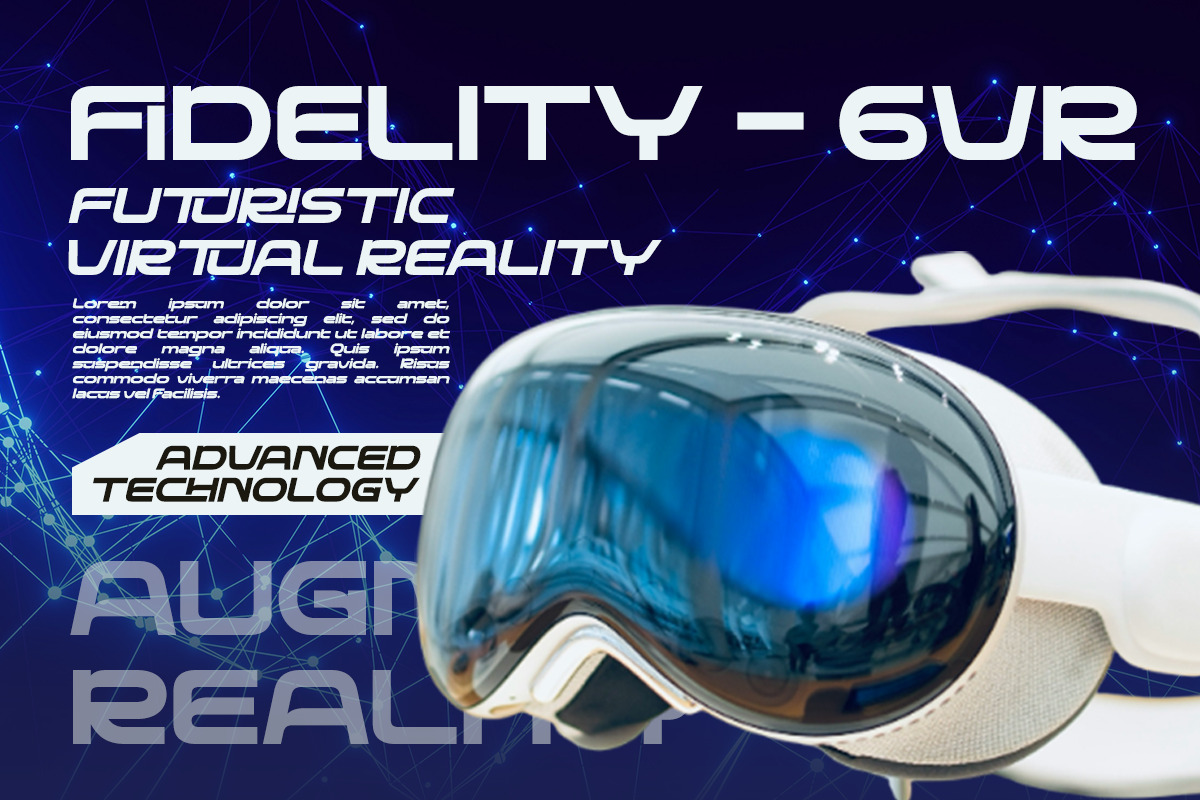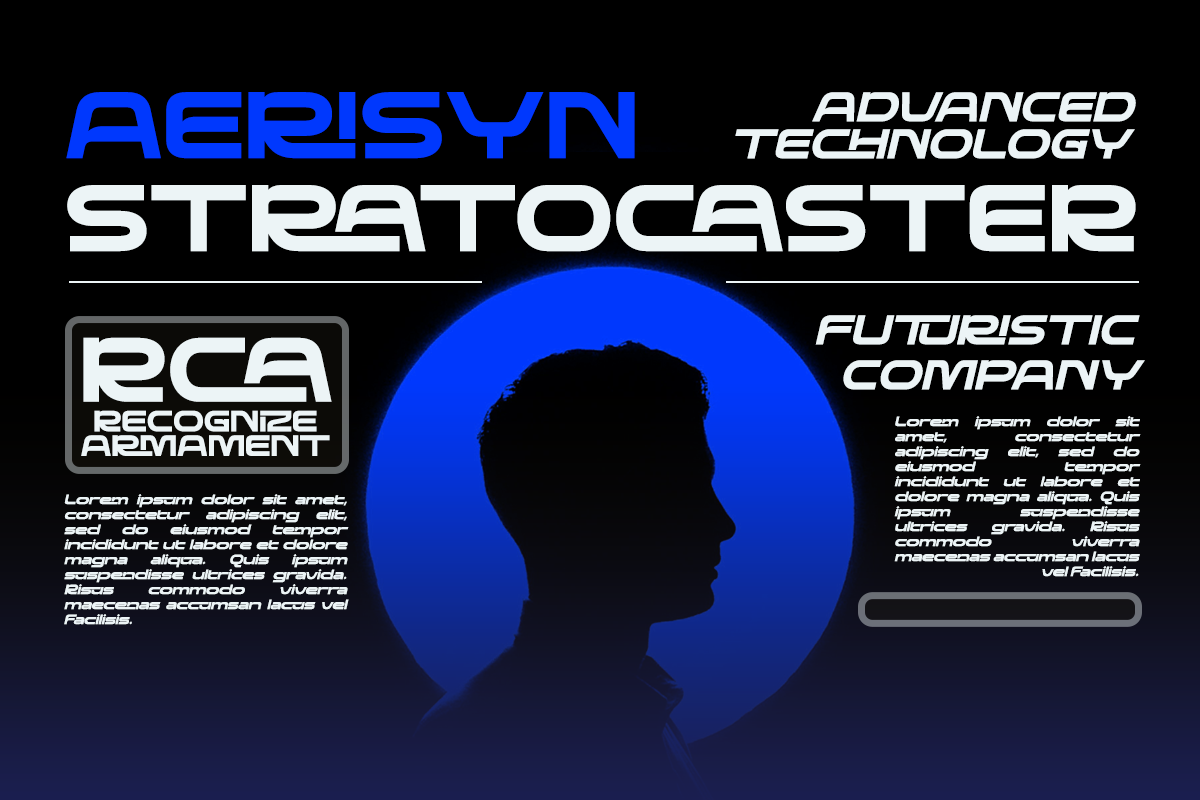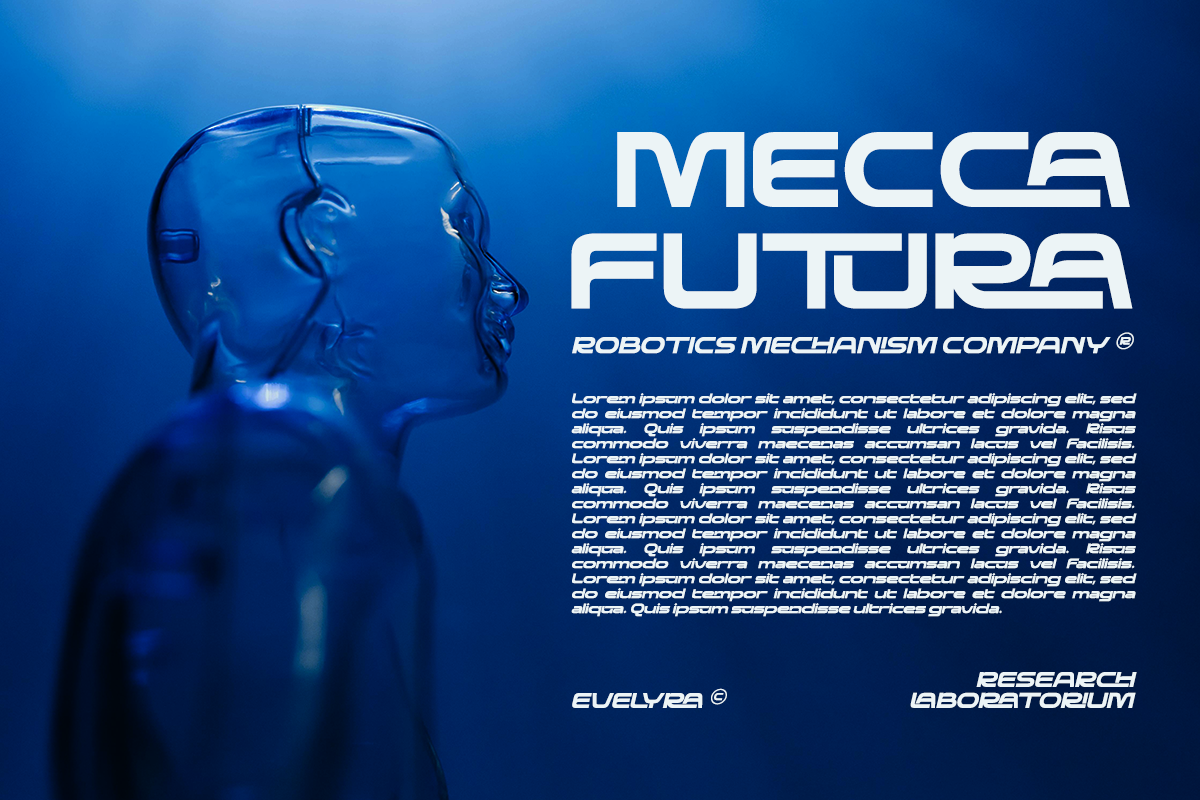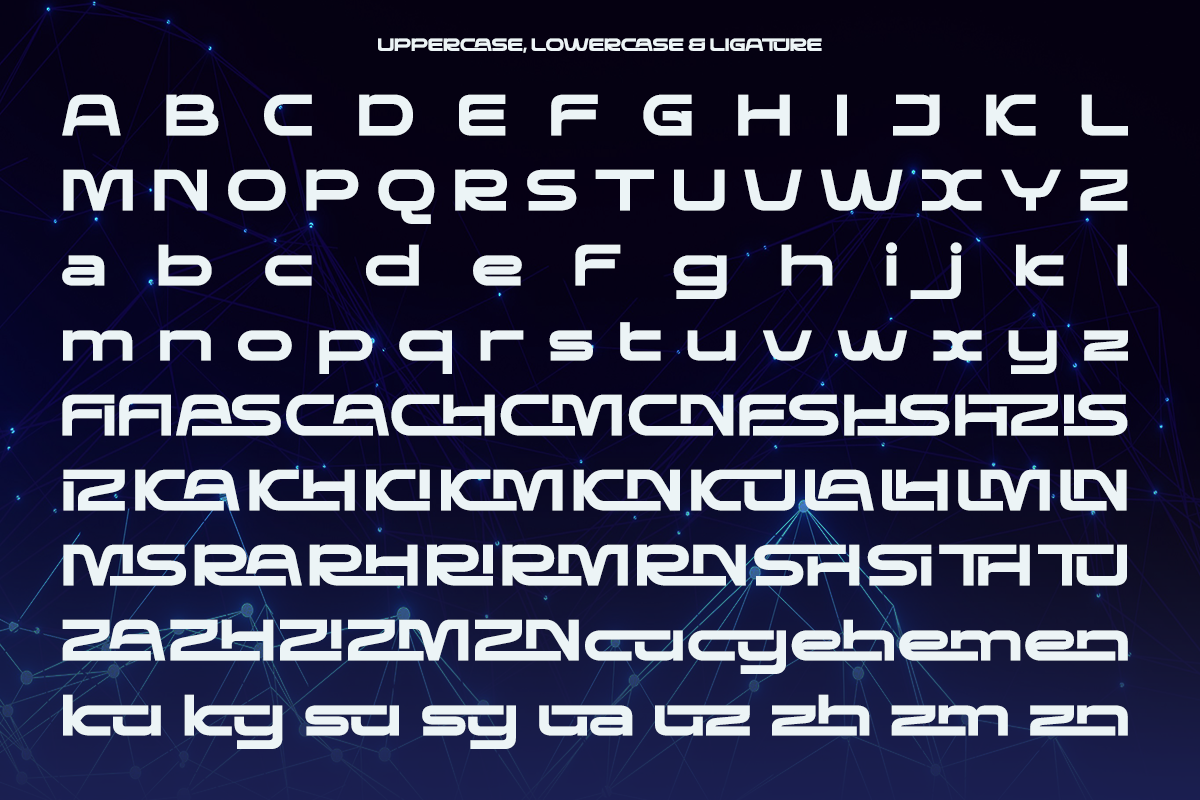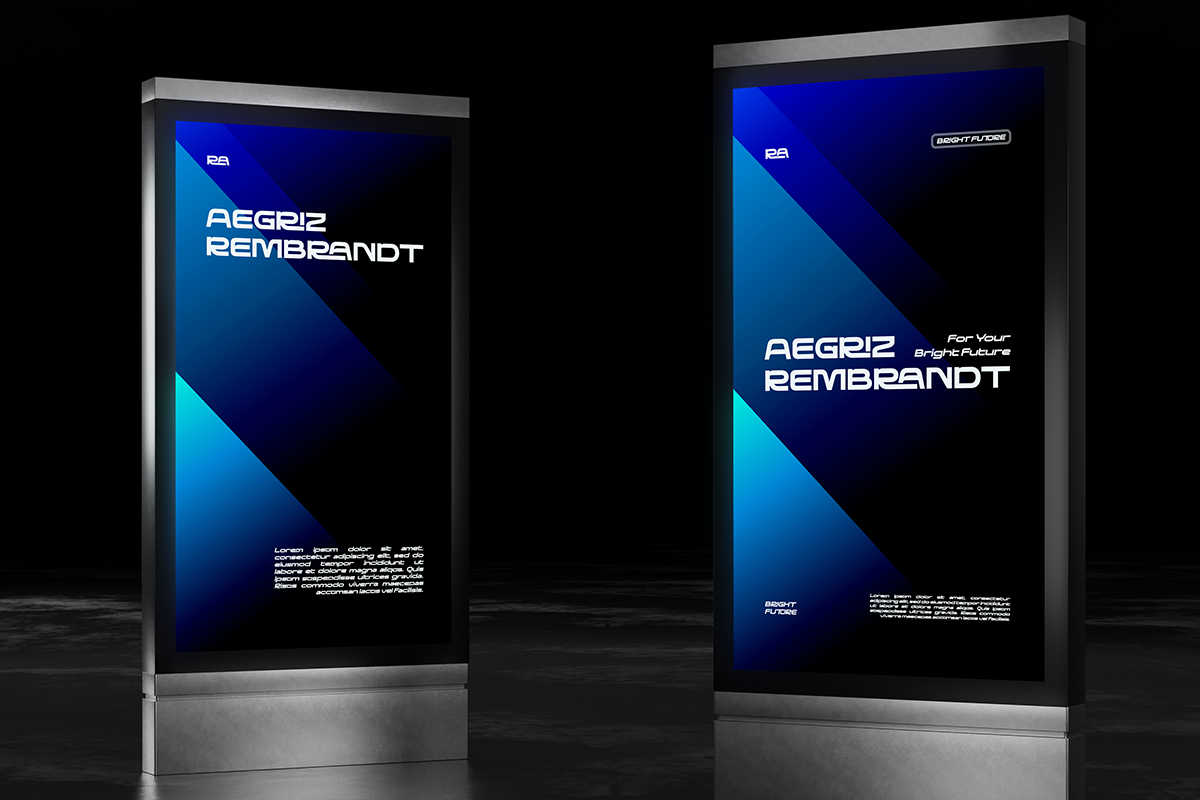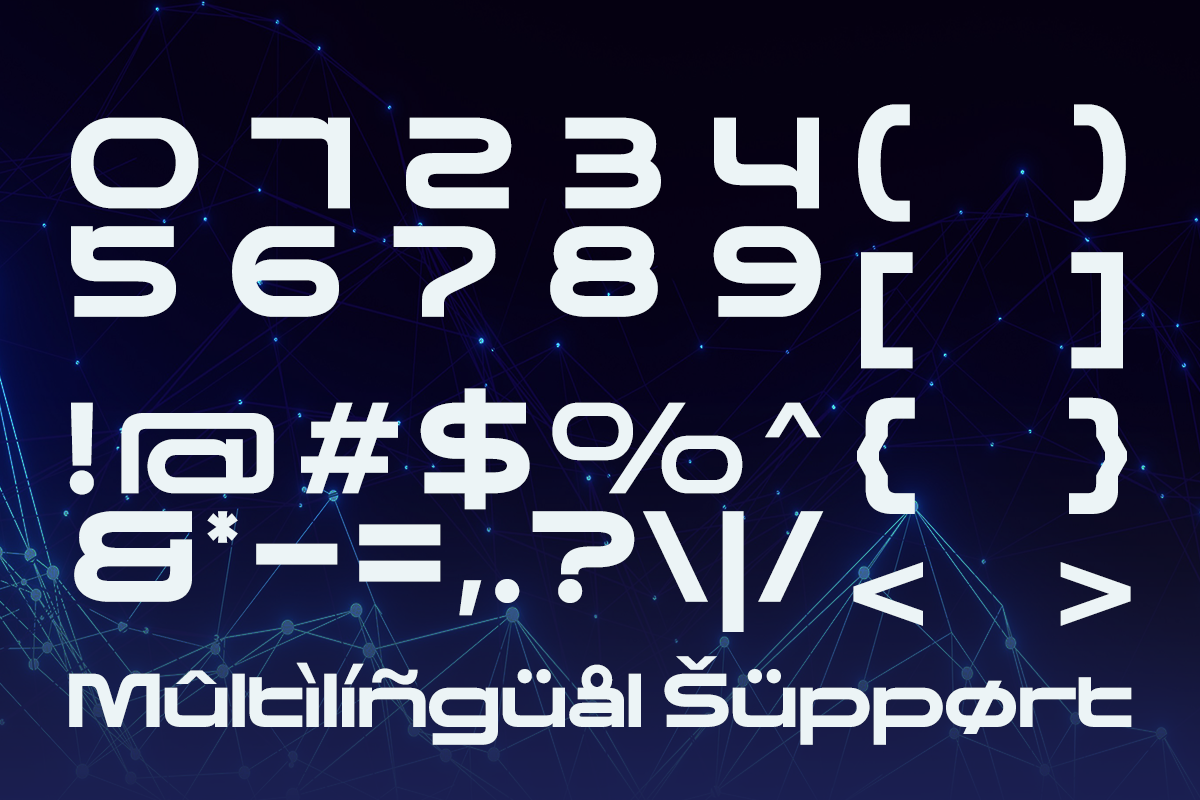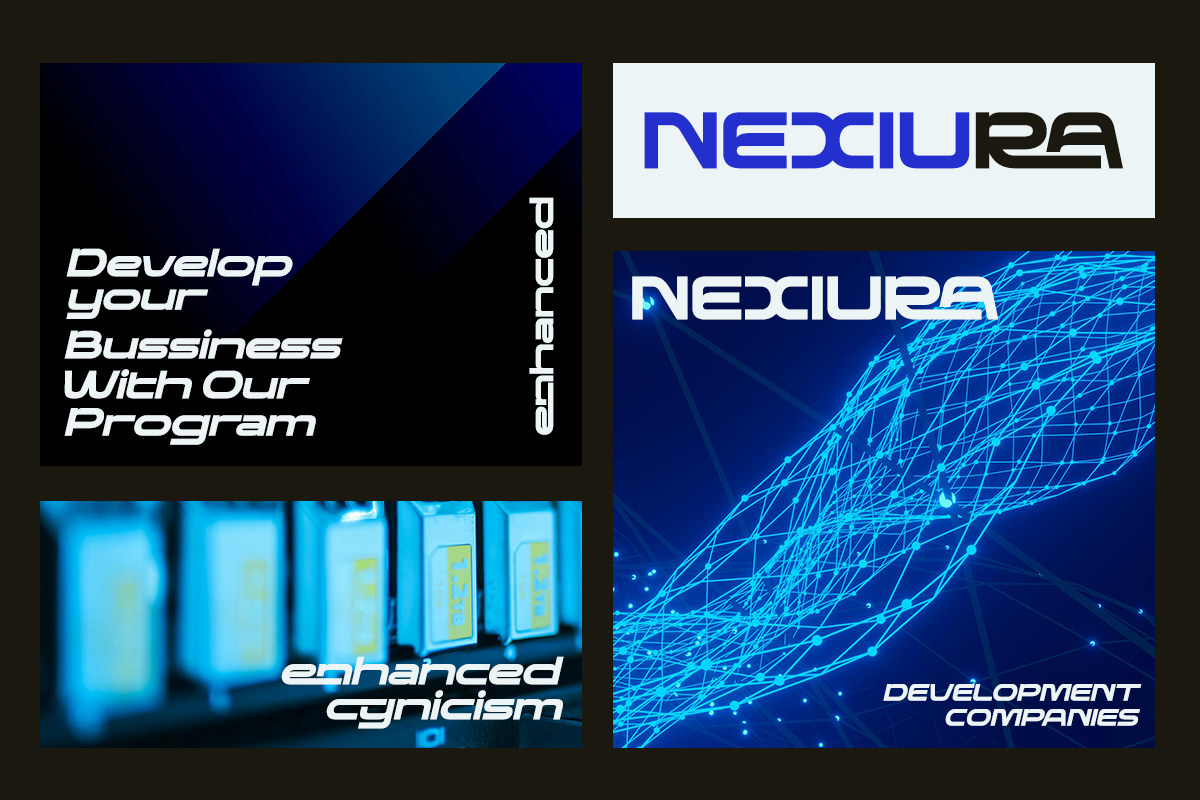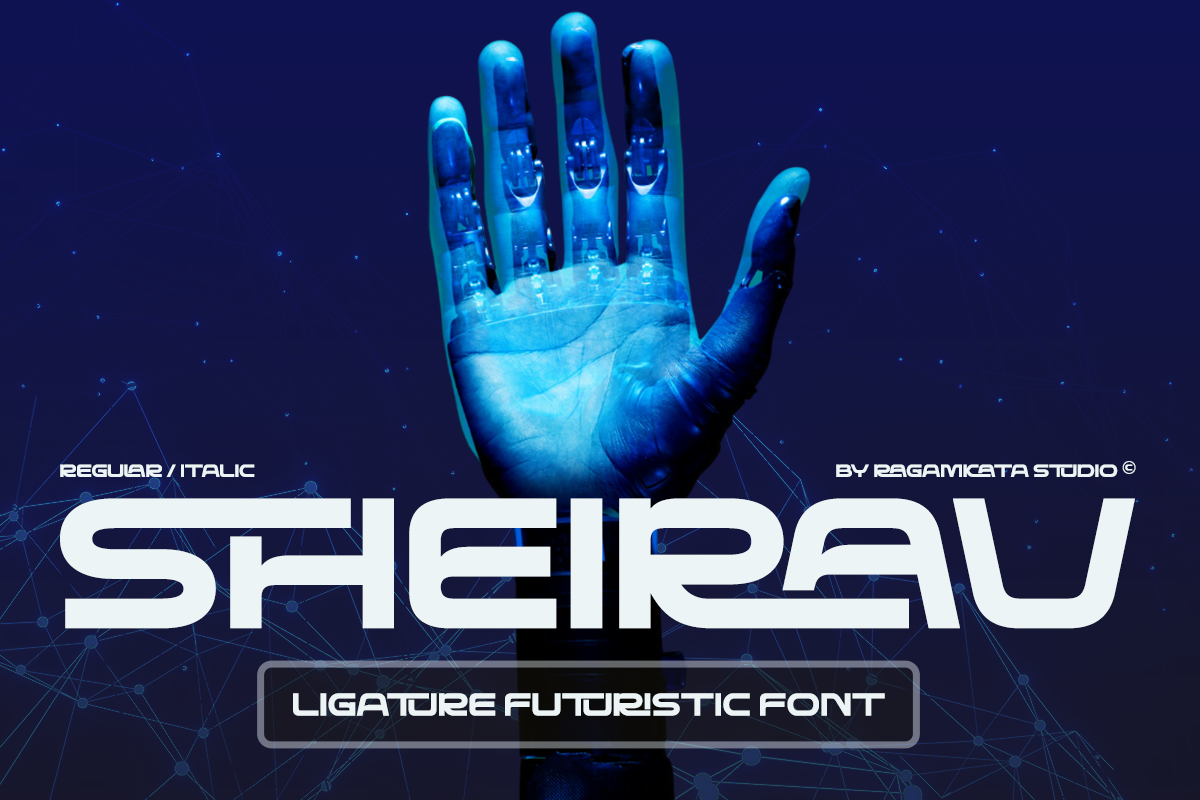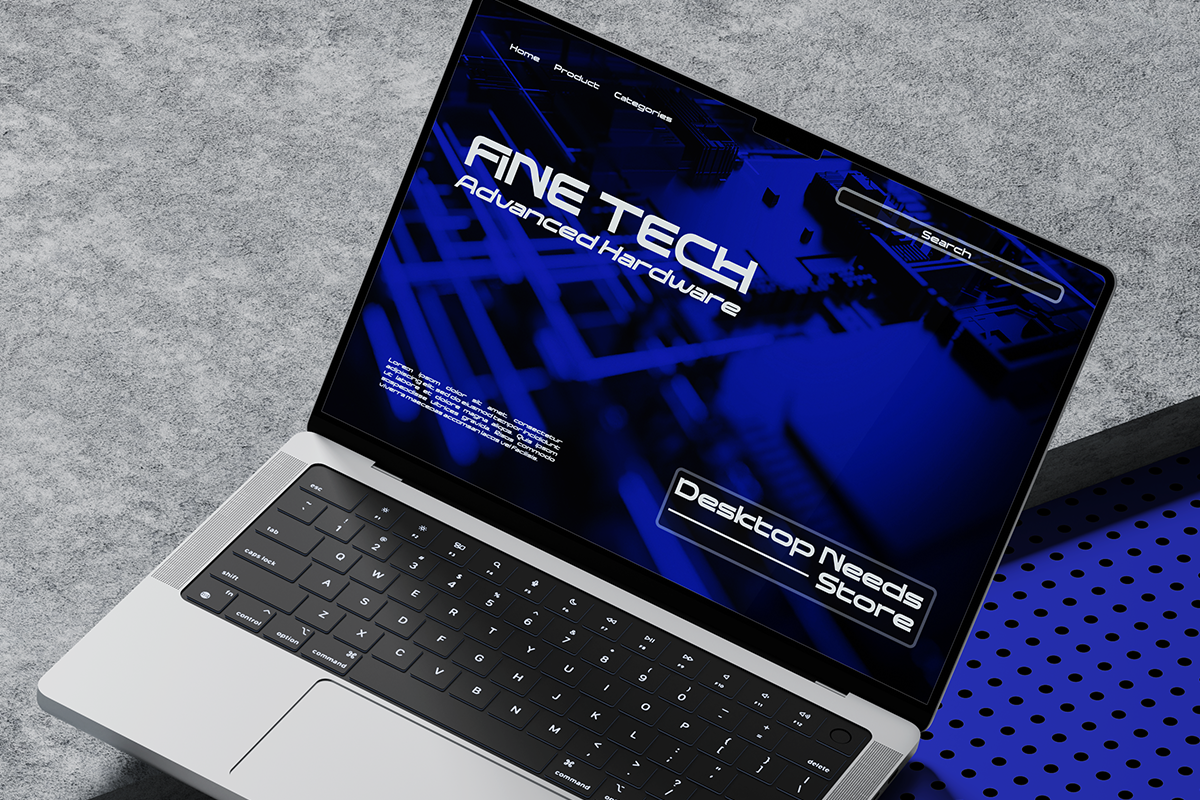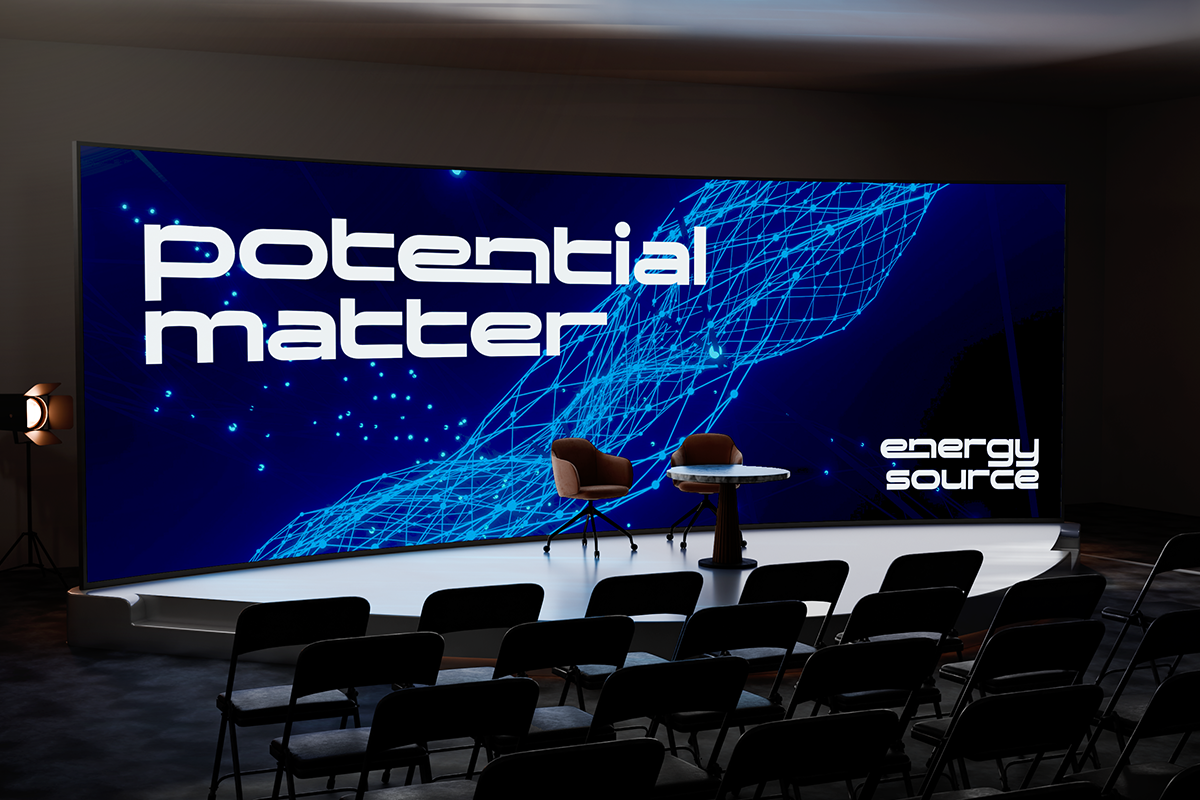
Sheirav - Futuristic Ligature Font
Sheirav is a contemporary, futuristic logo typeface defined by its sleek ligatures and precise geometric styling. Created for technology-focused branding, Sheirav blends minimalism with innovation to establish a strong visual presence suited for digital companies, startups, and creative brands. With distinctive letter connections and a refined structural design, Sheirav offers a unique typographic character that elevates modern logos, UI layouts, product packaging, and marketing materials. Its ligature-driven details give every word a dynamic, polished, and memorable appearance — perfect for tech-forward and design-centric projects.
- Stylish Ligature Pack
- Number, and Symbol